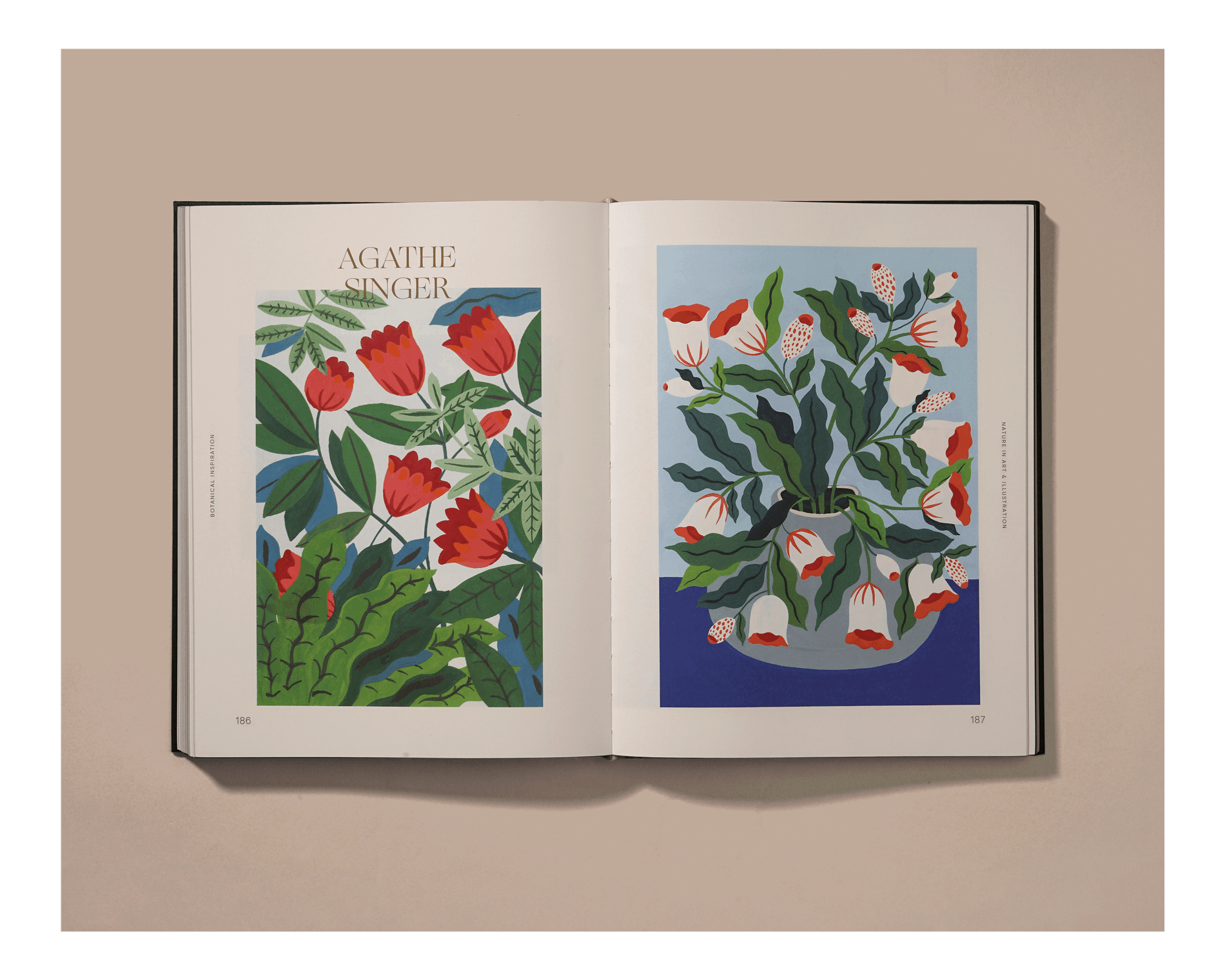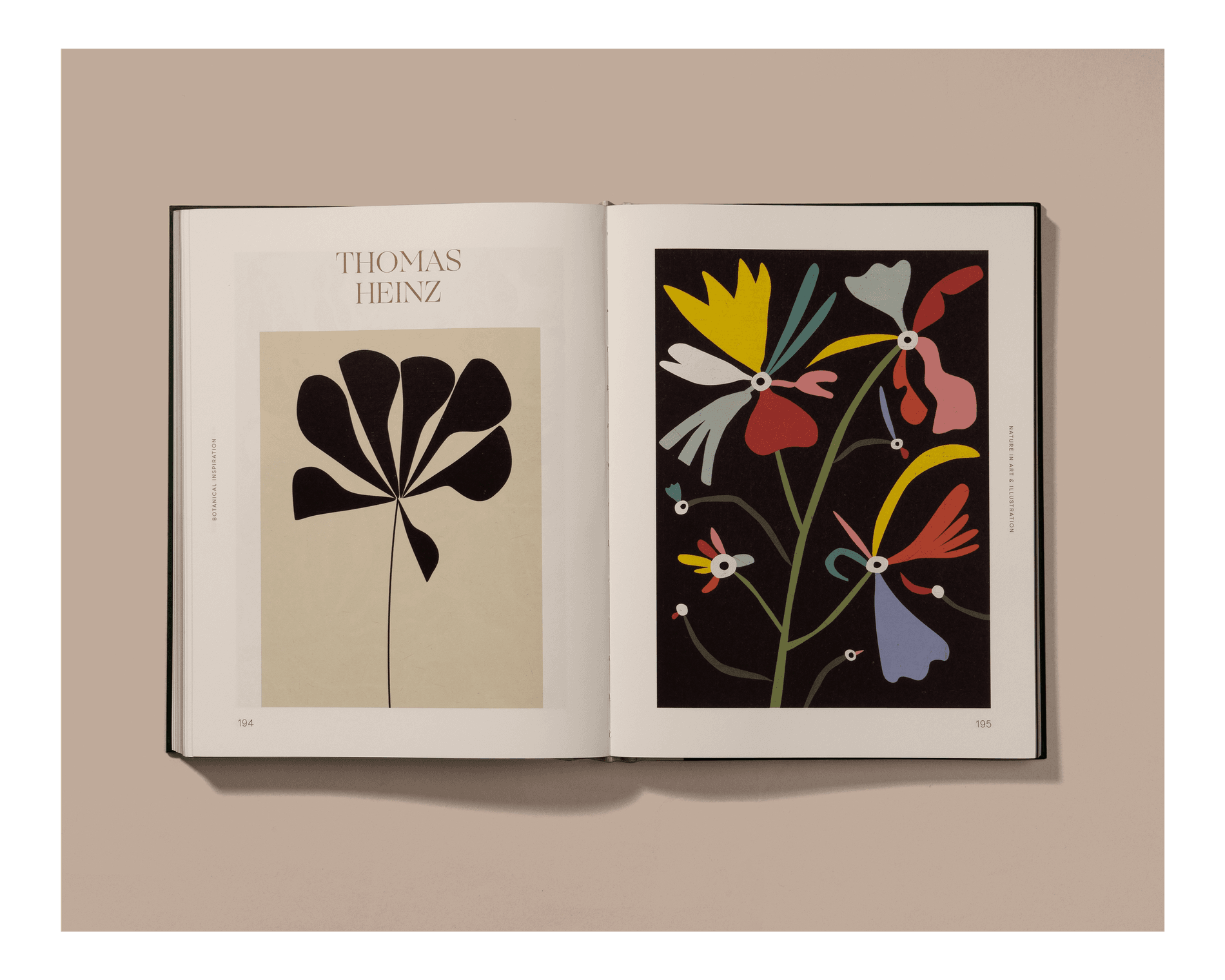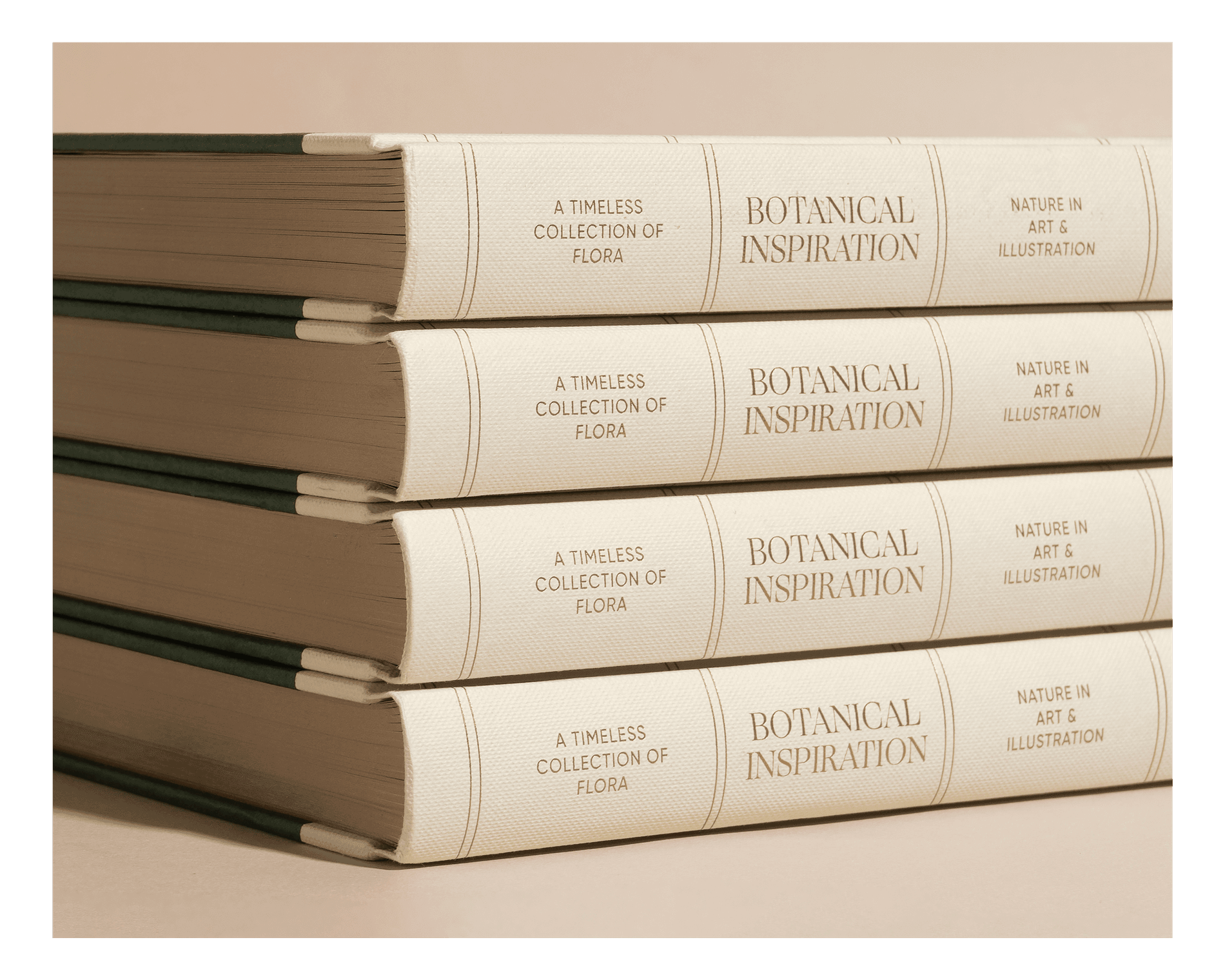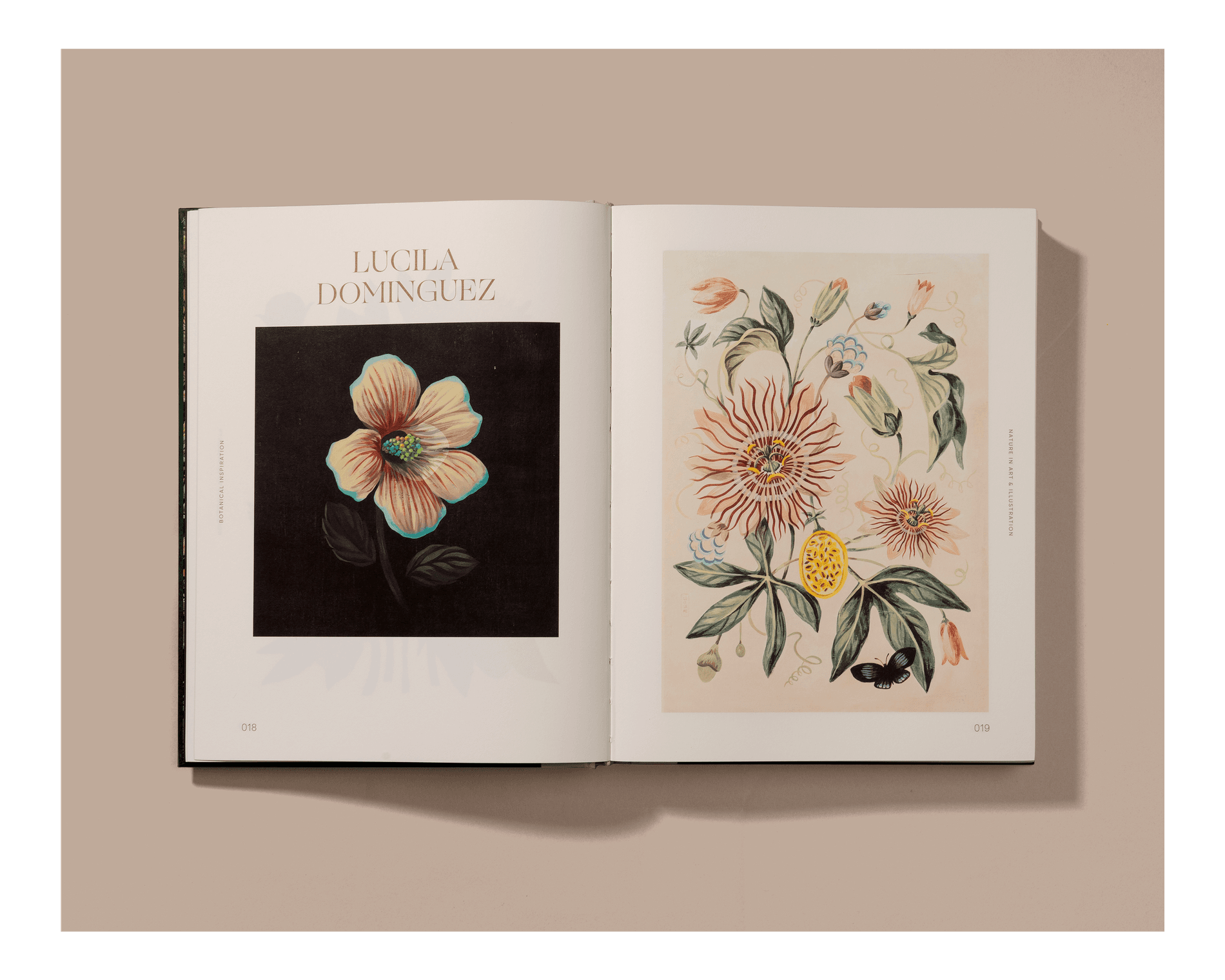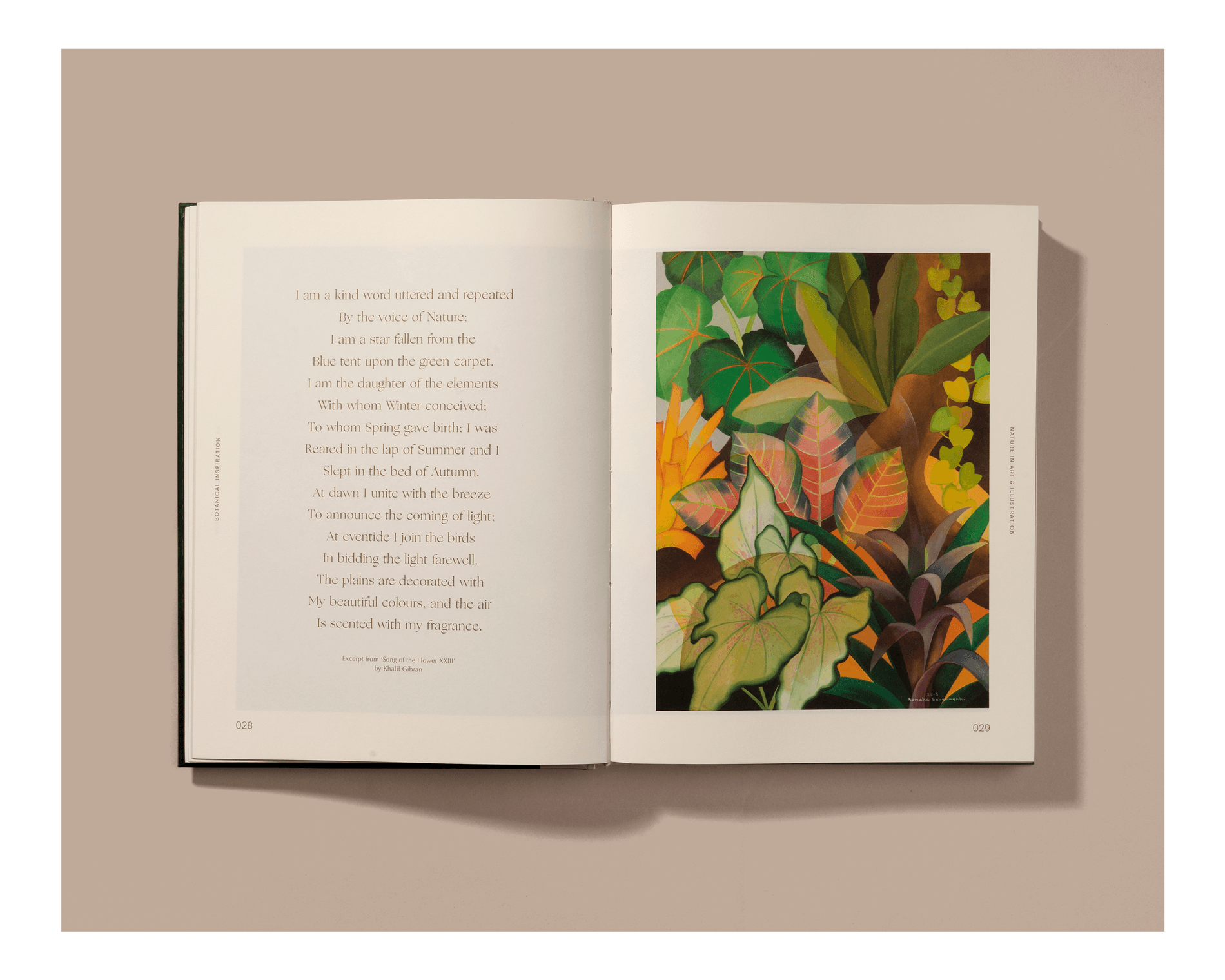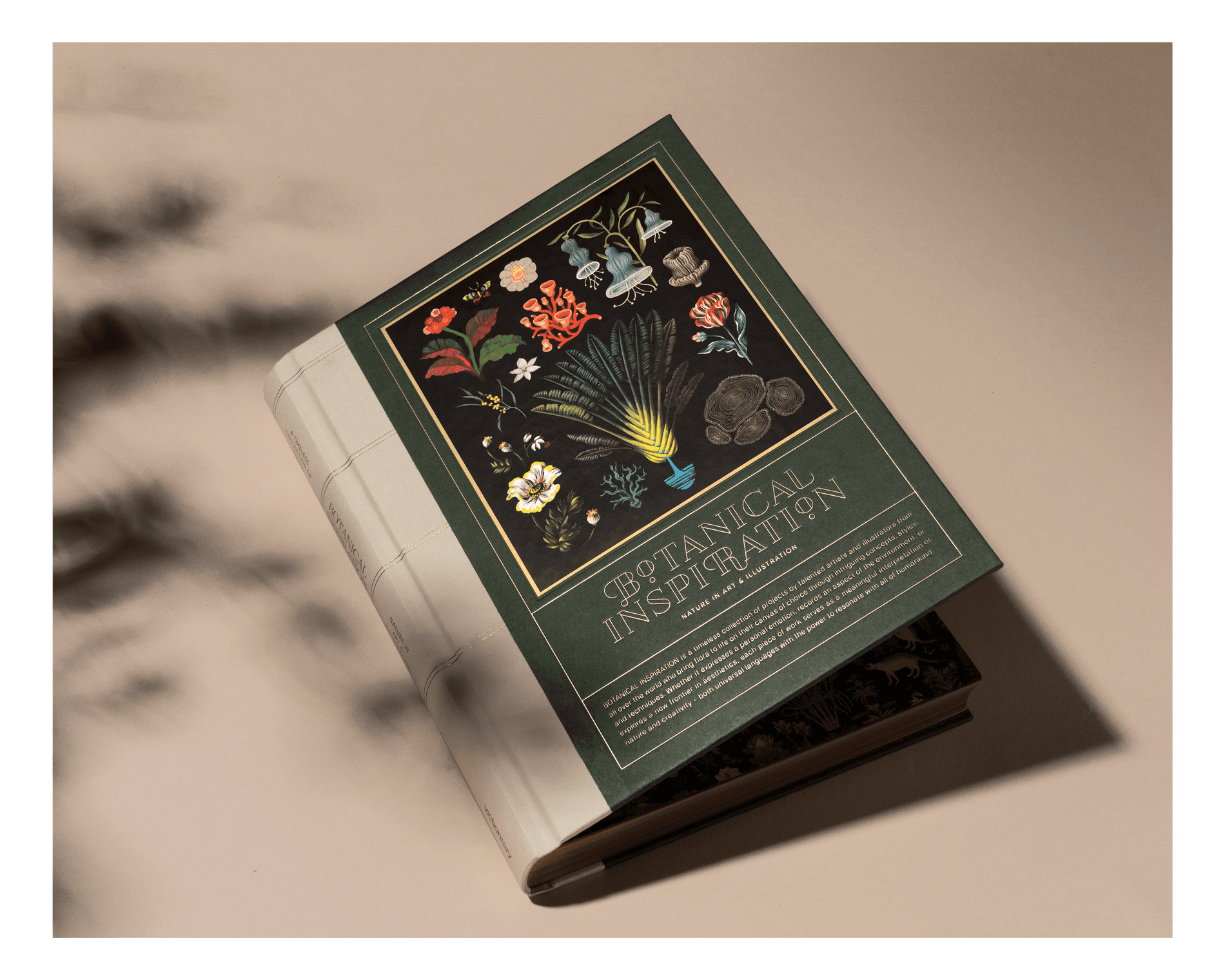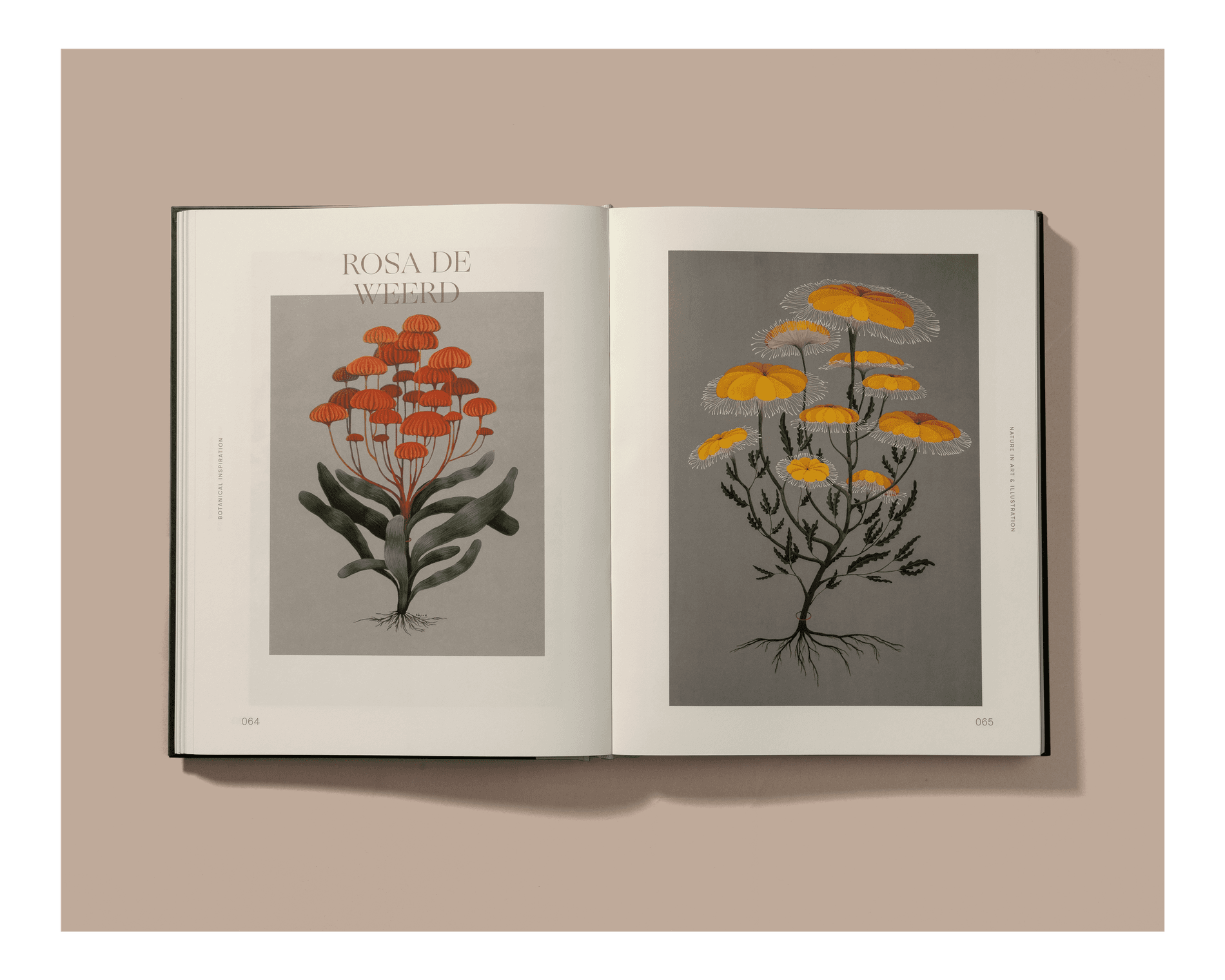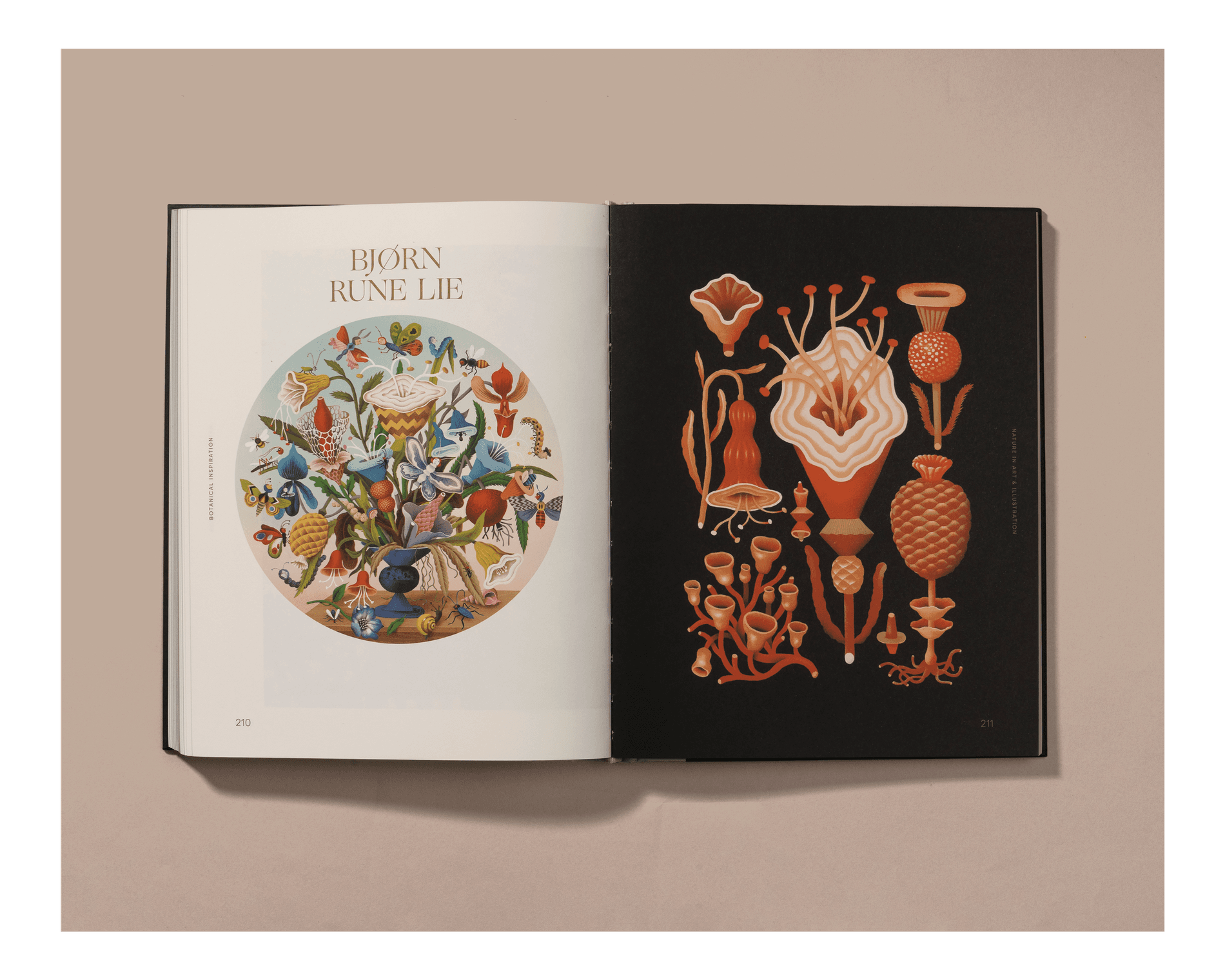
Botanical Inspiration & Ogg
Botanical Inspiration: Nature in art and illustration is a collection of nature artwork contributed by contemporary artists from around the world. Published by Victionary, the book discusses how as early as the days of scientific explorers and impressionist painters, many artists have used flora to “convey the very essence of our existence.”
The book uses Ogg for titles and literary excerpts alongside images of flora and fauna depicted in a variety of visual styles, techniques, and media. The airy and elegant calligraphic strokes of Ogg pair well with the vast and vibrant interpretations of nature: from blooming mushrooms rendered with acrylic paint on wood, to riso prints of blooming bouquets.
Typeface: Ogg